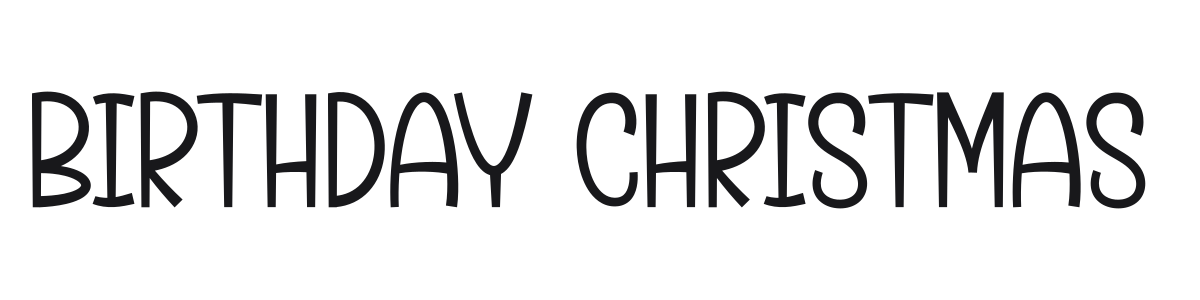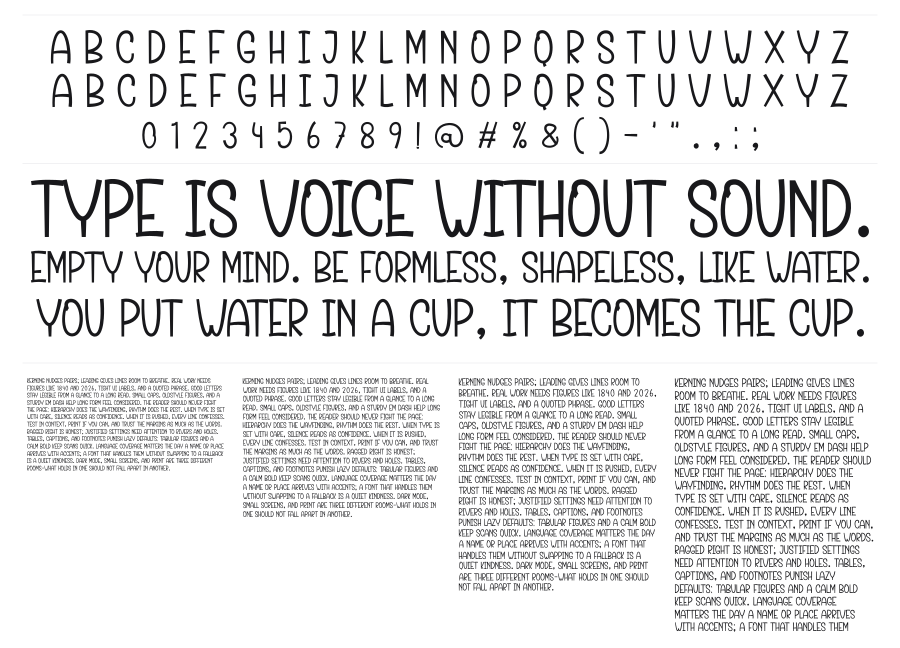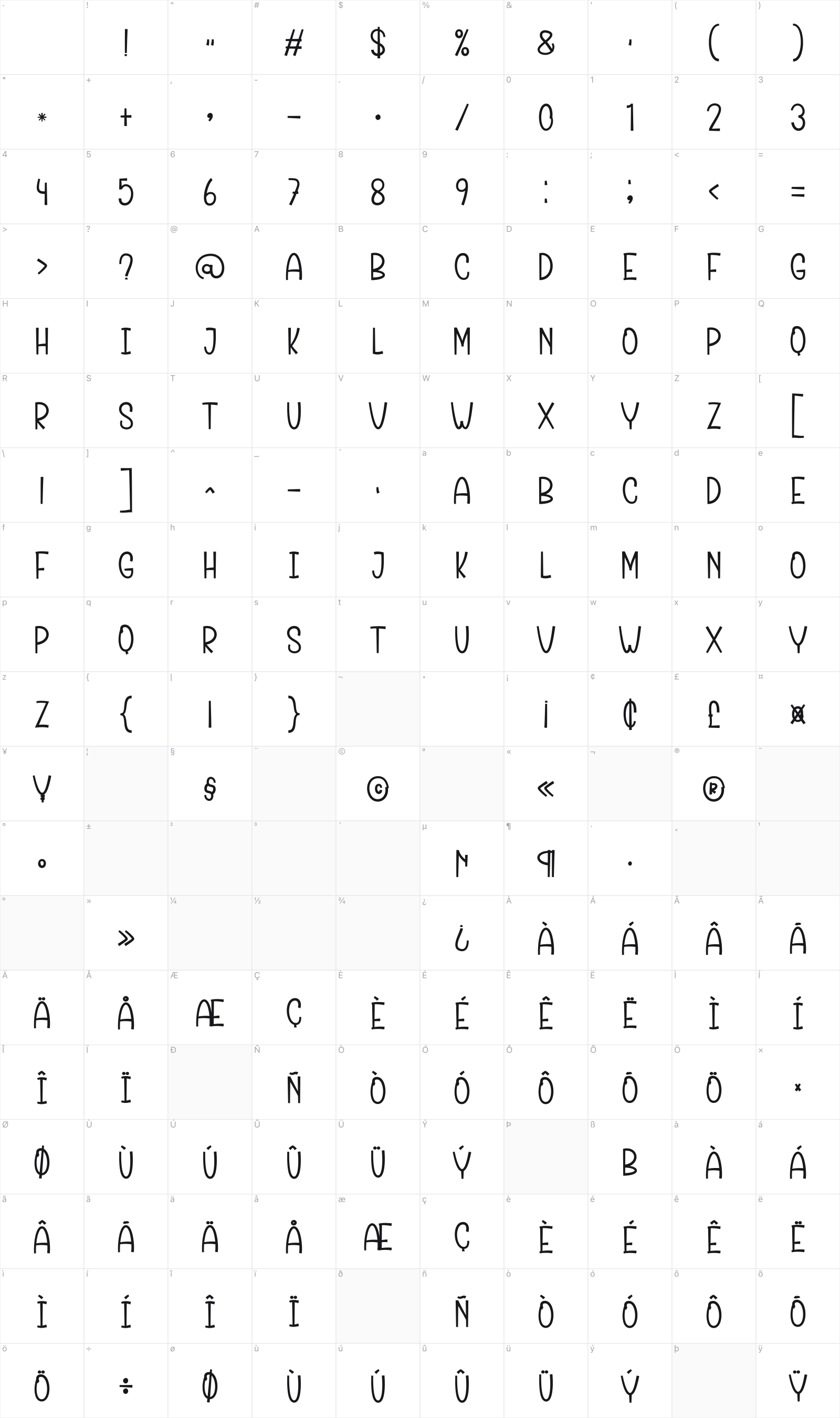
Birthday Christmas
Birthday Christmas is a tall condensed sans with a deliberately hand-drawn irregularity that keeps it feeling festive and informal. Subtle stroke wobbles and blunt terminals give it a crafted, organic quality without tipping into full script territory. It suits seasonal branding, greeting card headlines, and any project that needs a cheerful, celebratory voice.